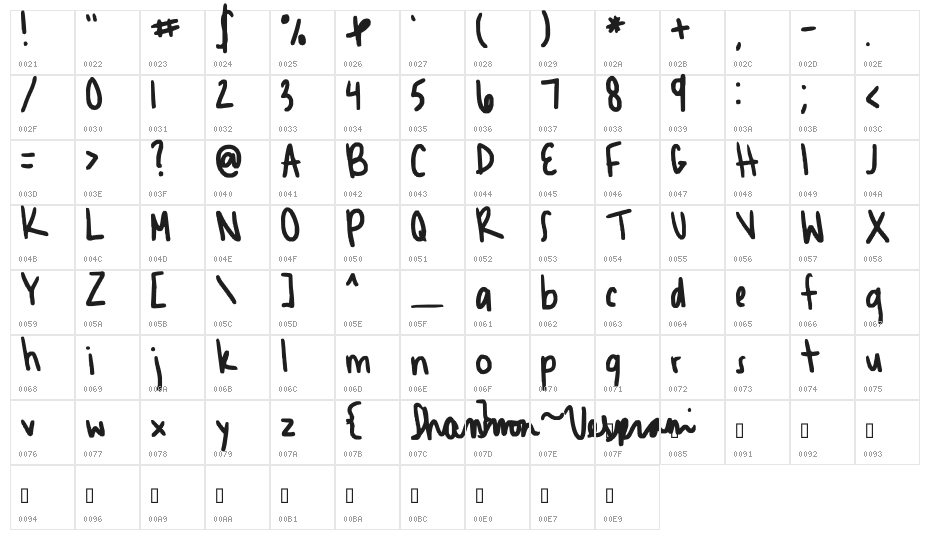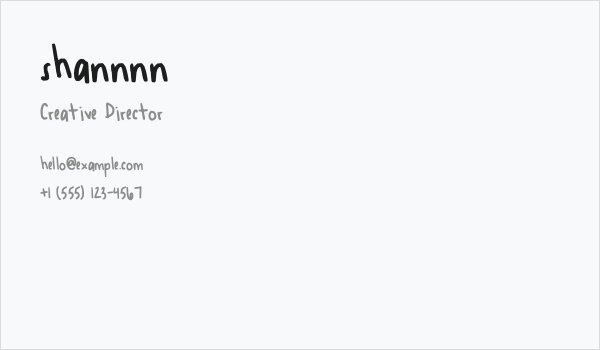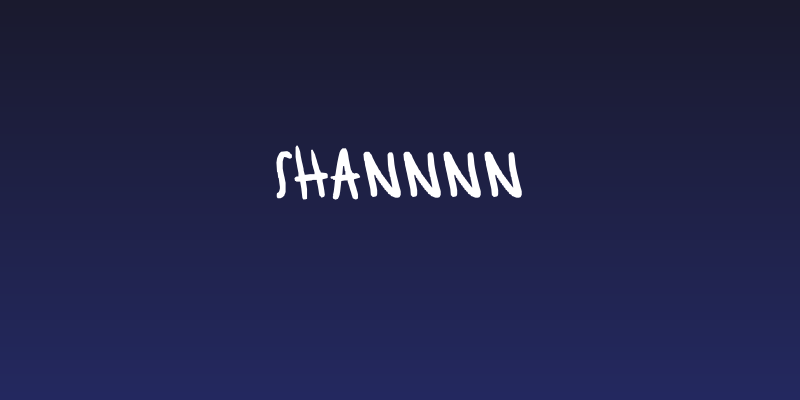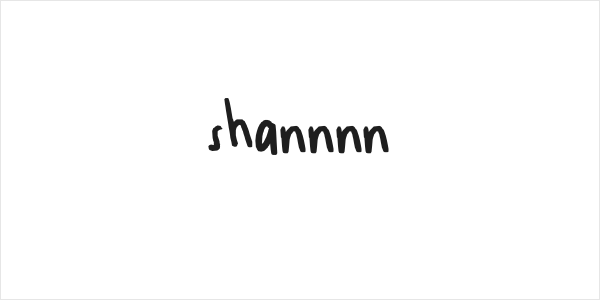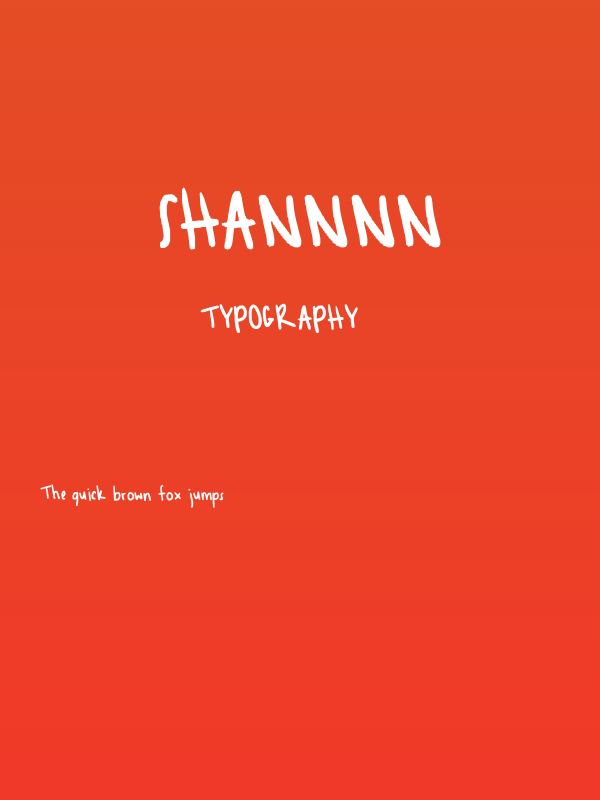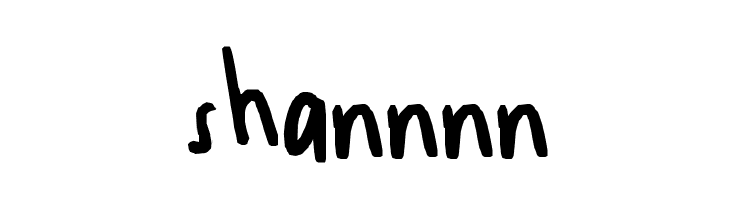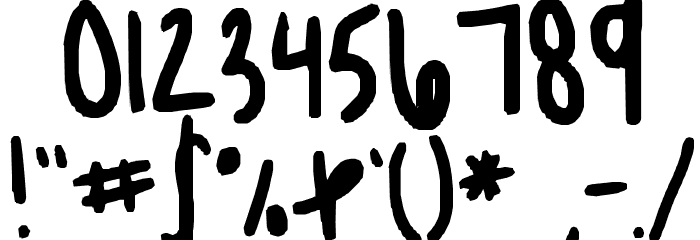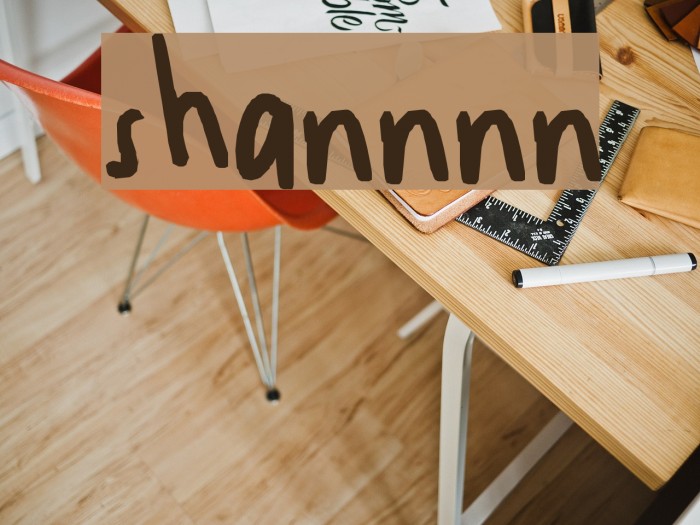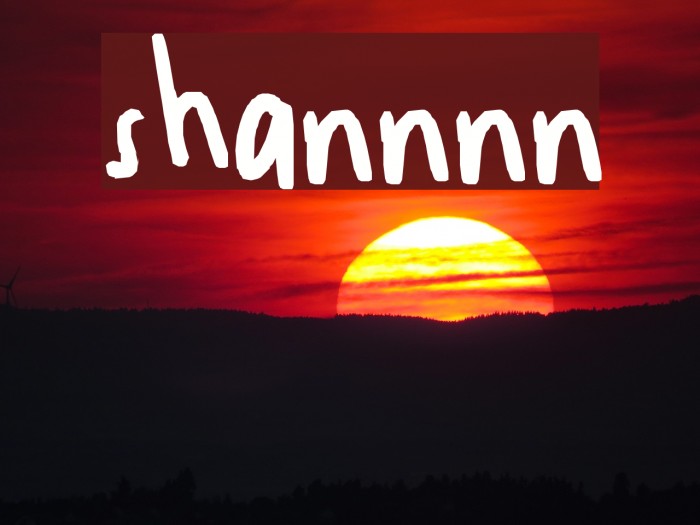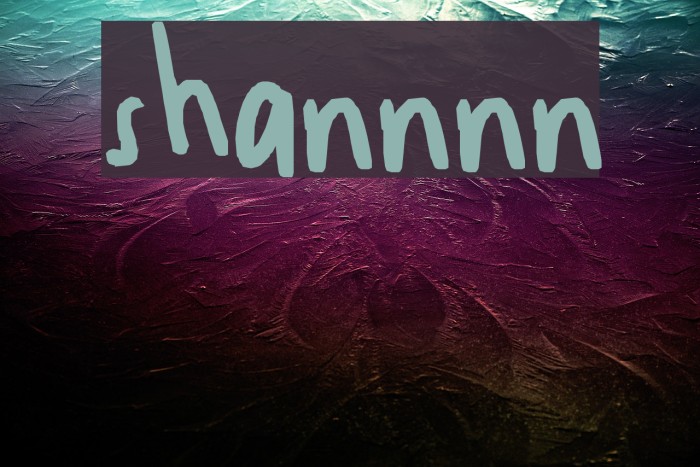
shannnn Font
shannnn Description
This font features a playful and casual handwritten style, characterized by its uneven lines and organic flow. The letters are bold and slightly irregular, giving them a dynamic and lively appearance. The uppercase and lowercase letters maintain a consistent style, with rounded edges and a slightly tilted orientation, adding to the informal and approachable feel. The numbers and special characters follow the same design principles, ensuring a cohesive look across all elements. This font's unique charm makes it stand out, perfect for projects that require a personal touch.
| Proposed Projects | Ideal for greeting cards, children's books, casual branding, and social media graphics. |